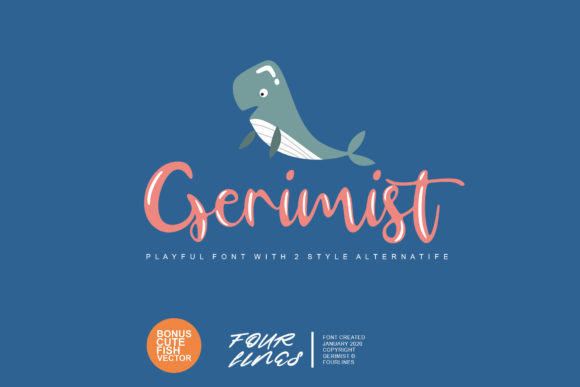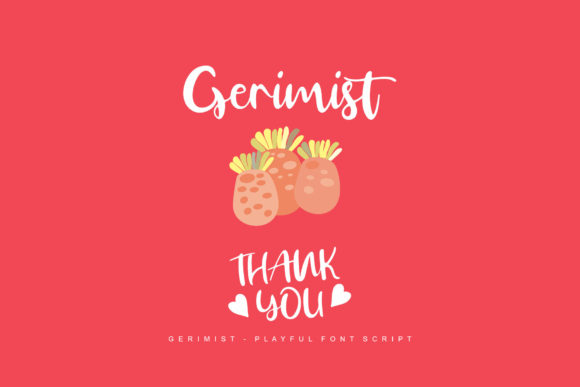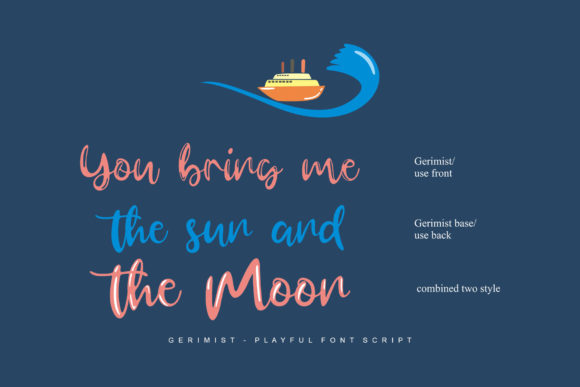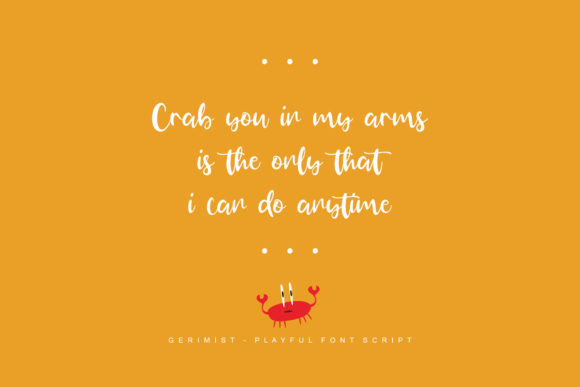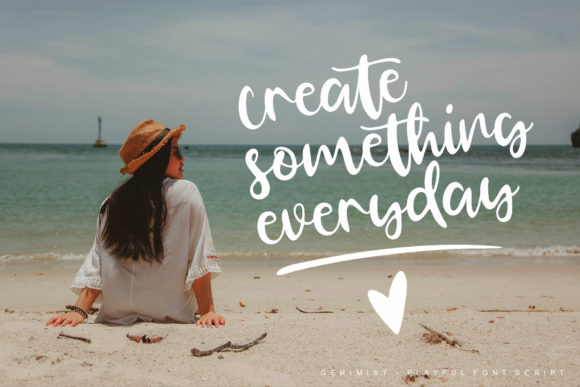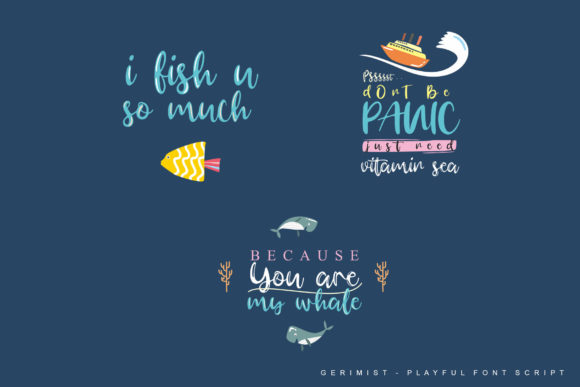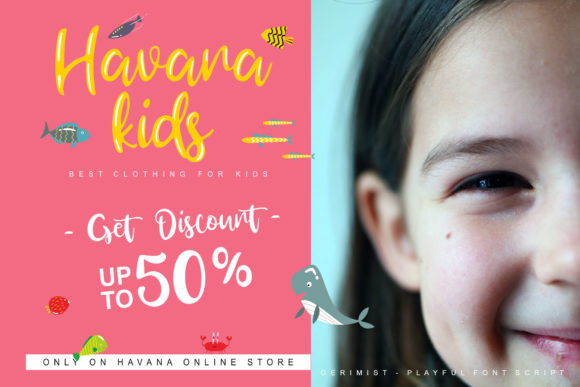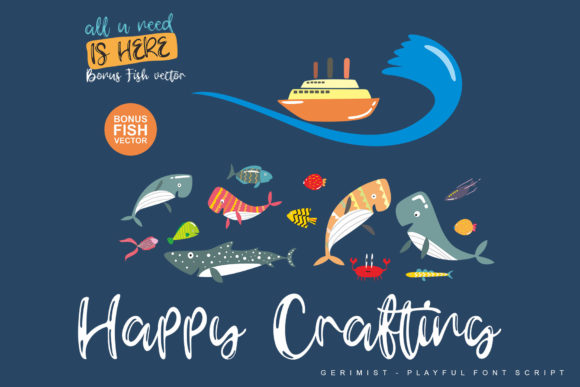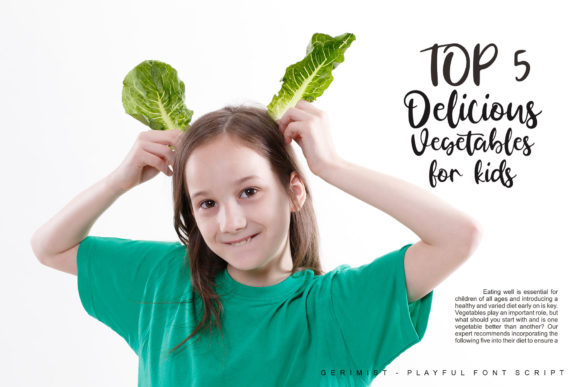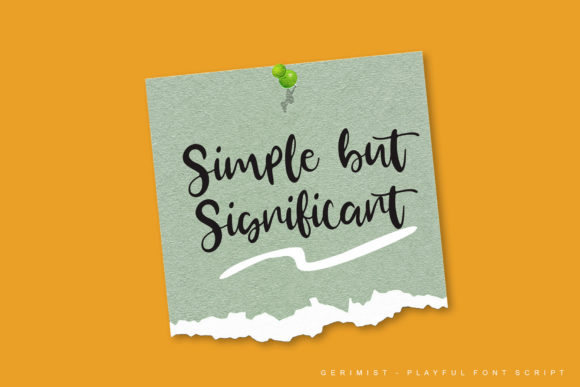
Gerimist Font
About Gerimist Font
Grimist embodies fun, quirkiness and authenticity. This enchanting handwritten font will turn any creative idea into a true standout.